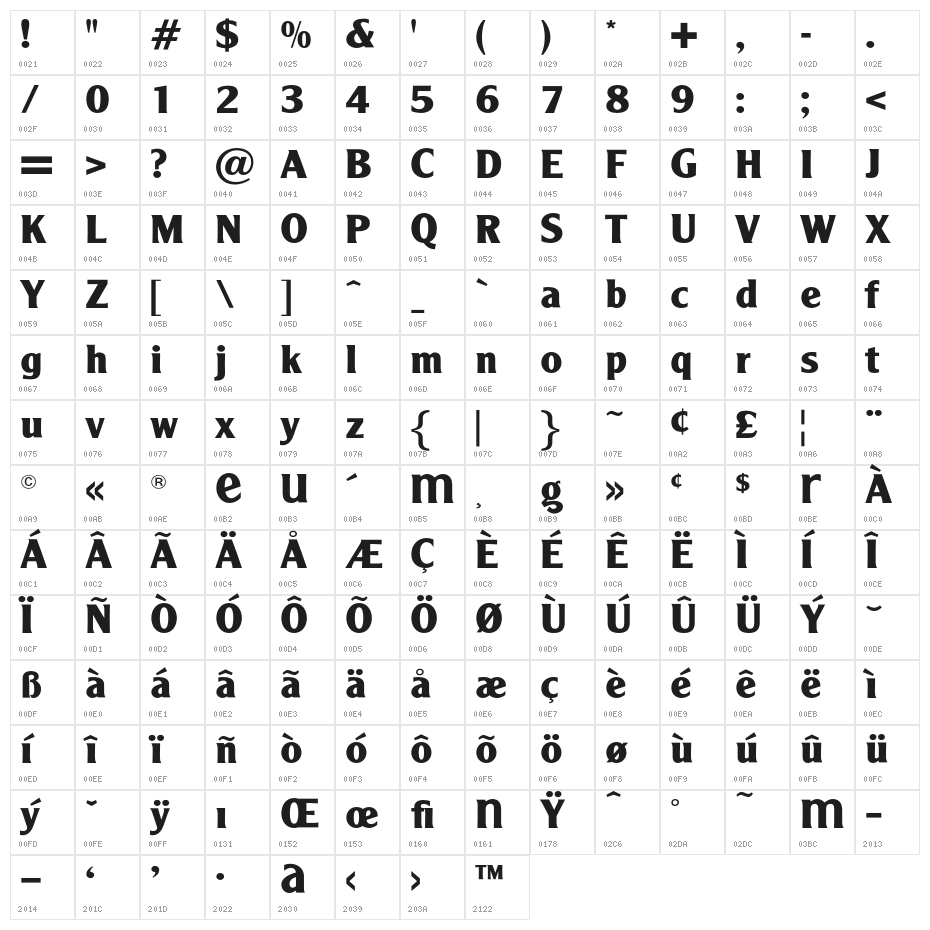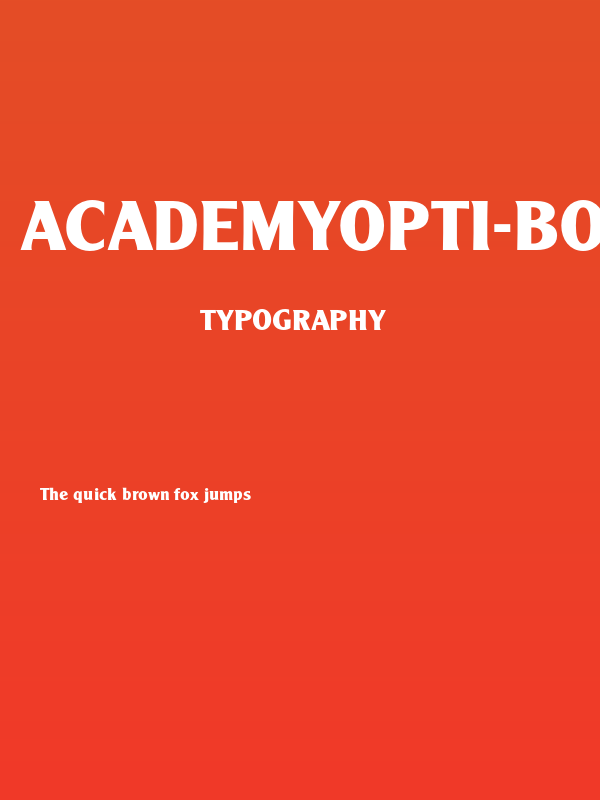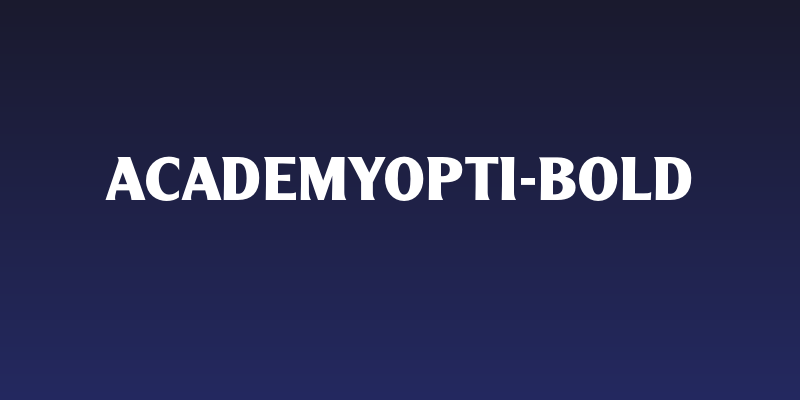
AcademyOpti-Bold Font
AcademyOpti-Bold Description
This font features a bold and commanding presence with its thick strokes and strong serifs. The uppercase letters are robust and well-defined, while the lowercase characters maintain a consistent weight, offering a harmonious balance. The numerals are clear and easily distinguishable, making them suitable for various applications. The special characters are crafted with precision, ensuring readability and aesthetic appeal. Overall, this font exudes a classic yet modern feel, making it versatile for both traditional and contemporary designs.
Overall StyleClassic
Use CaseHeadlines, Logos, Branding
Proposed ProjectsIdeal for headlines, branding, posters, and editorial design where a strong, authoritative presence is desired.